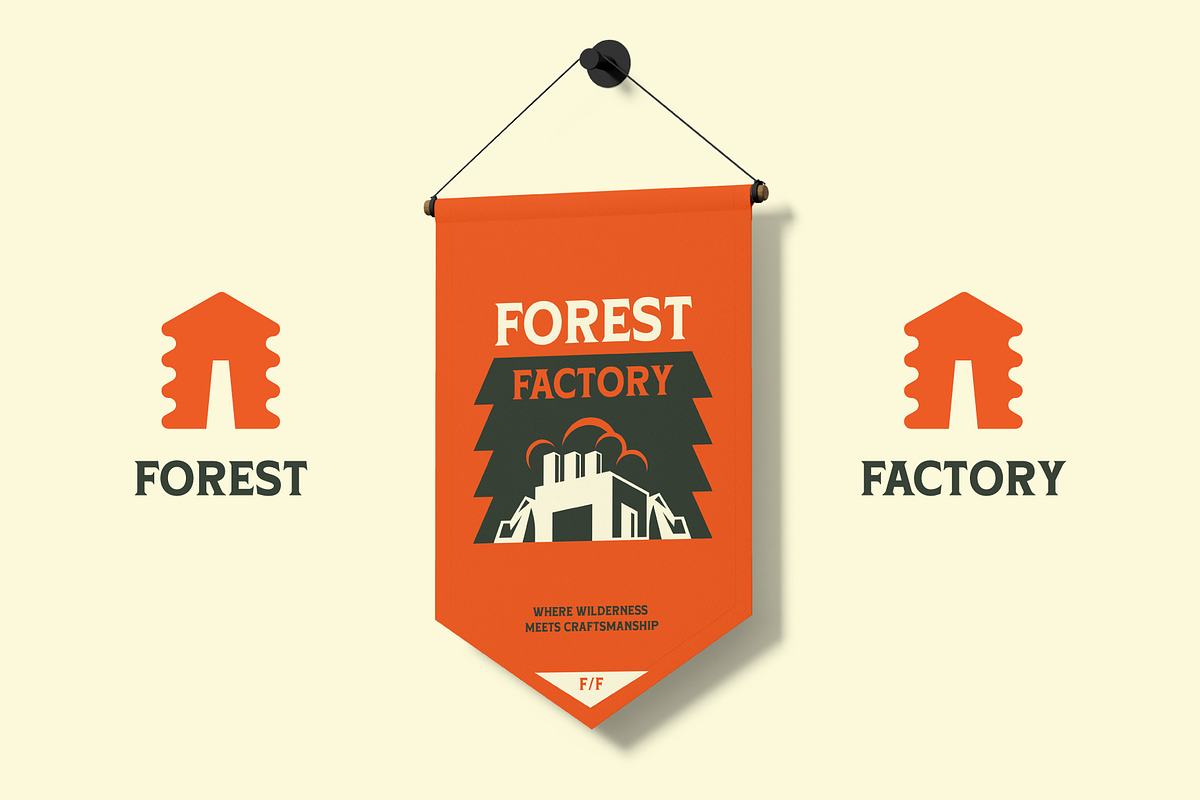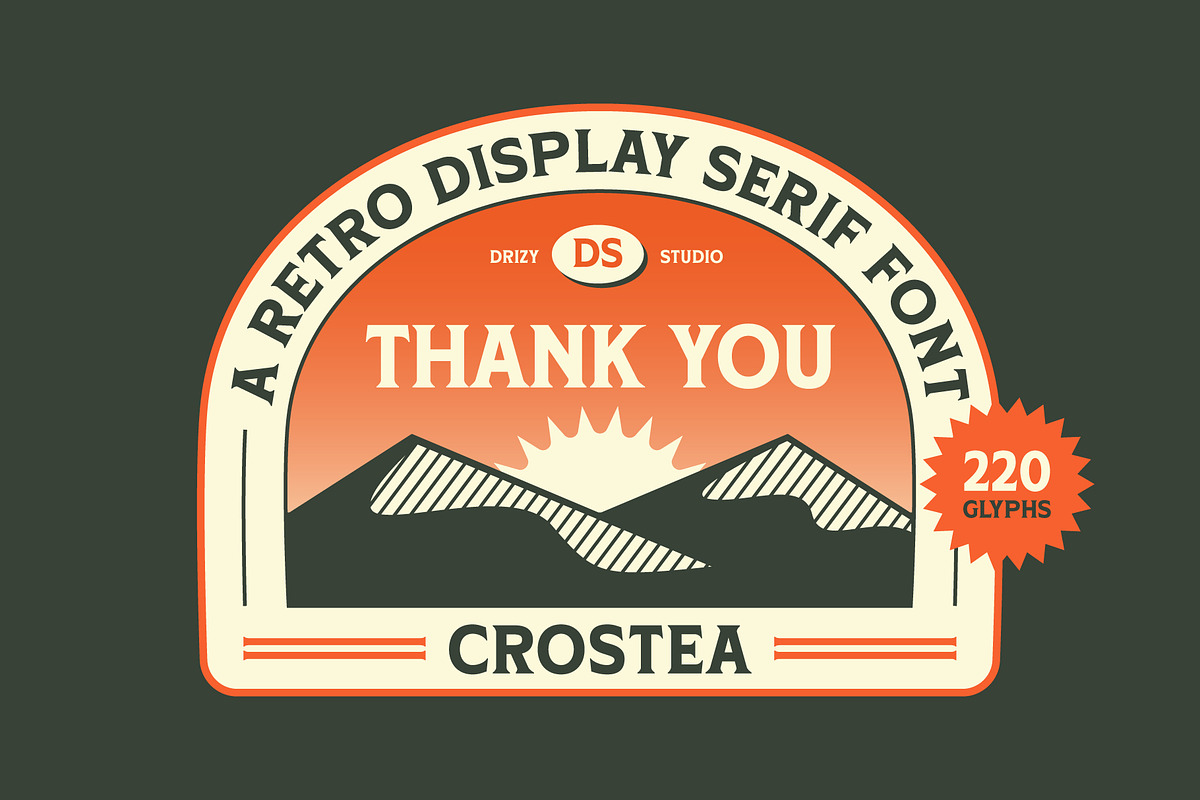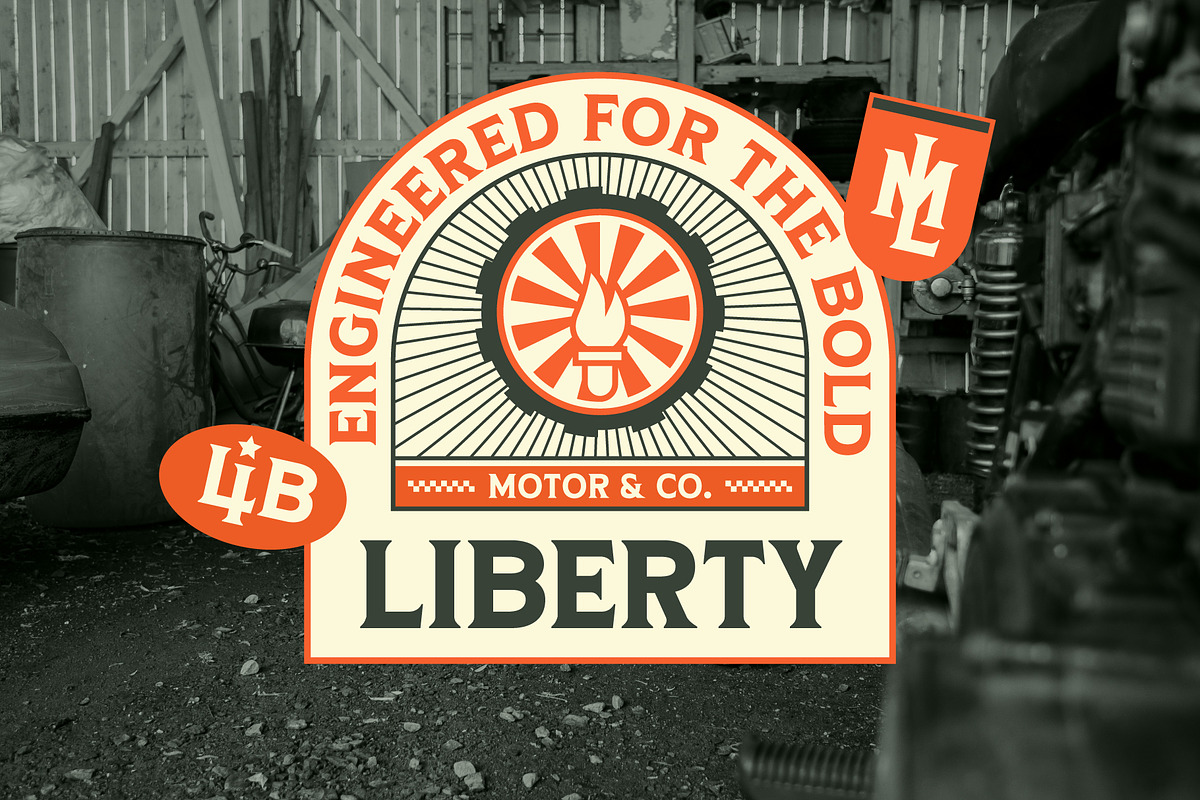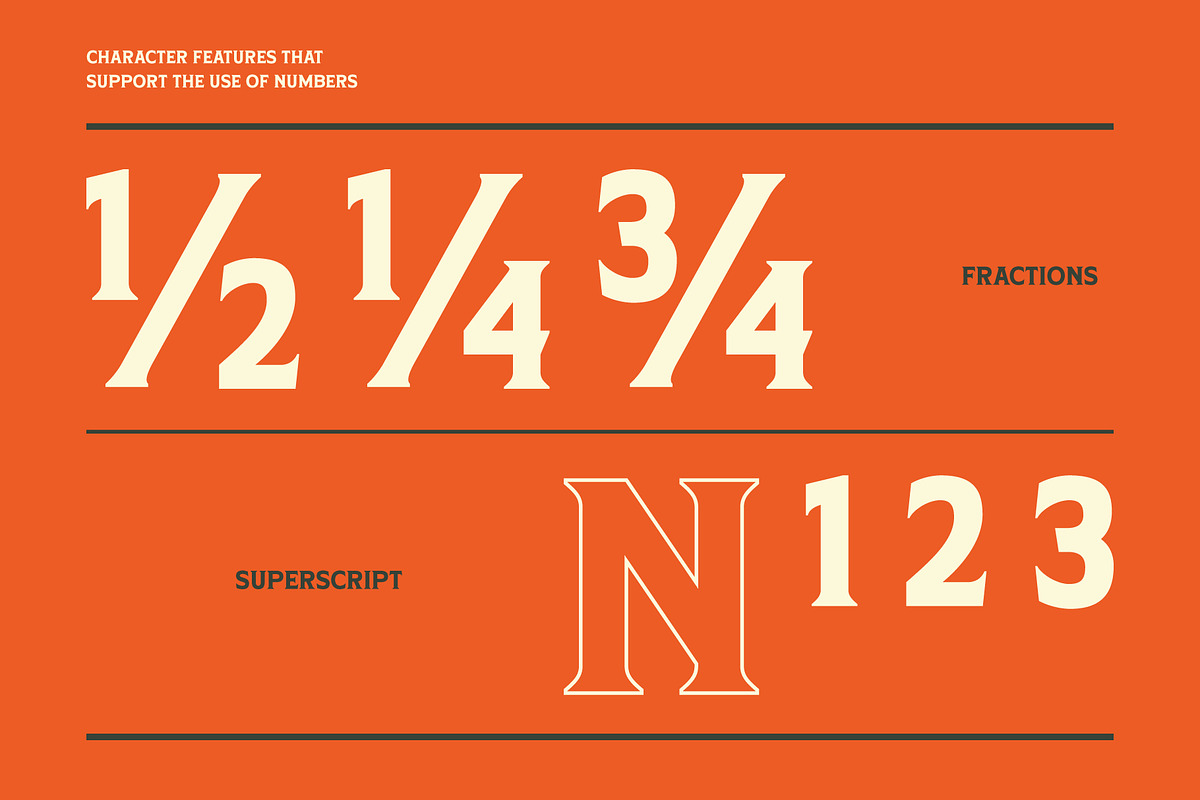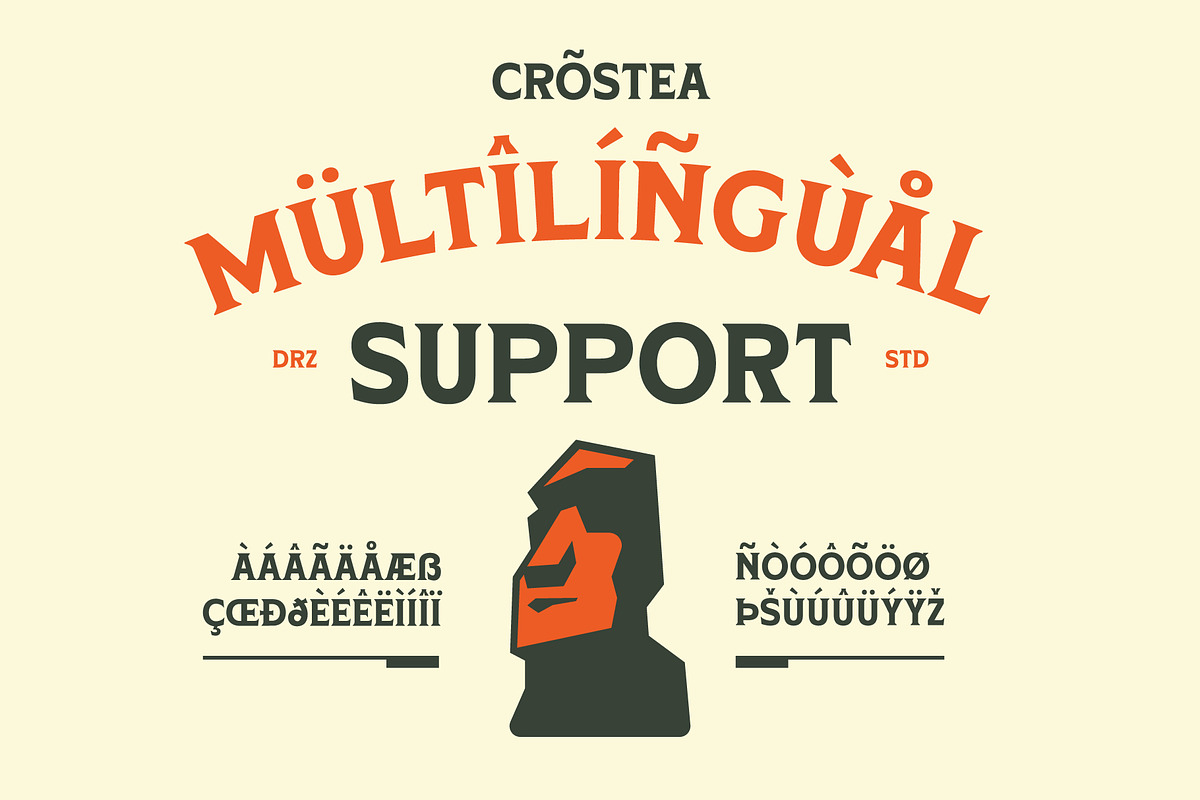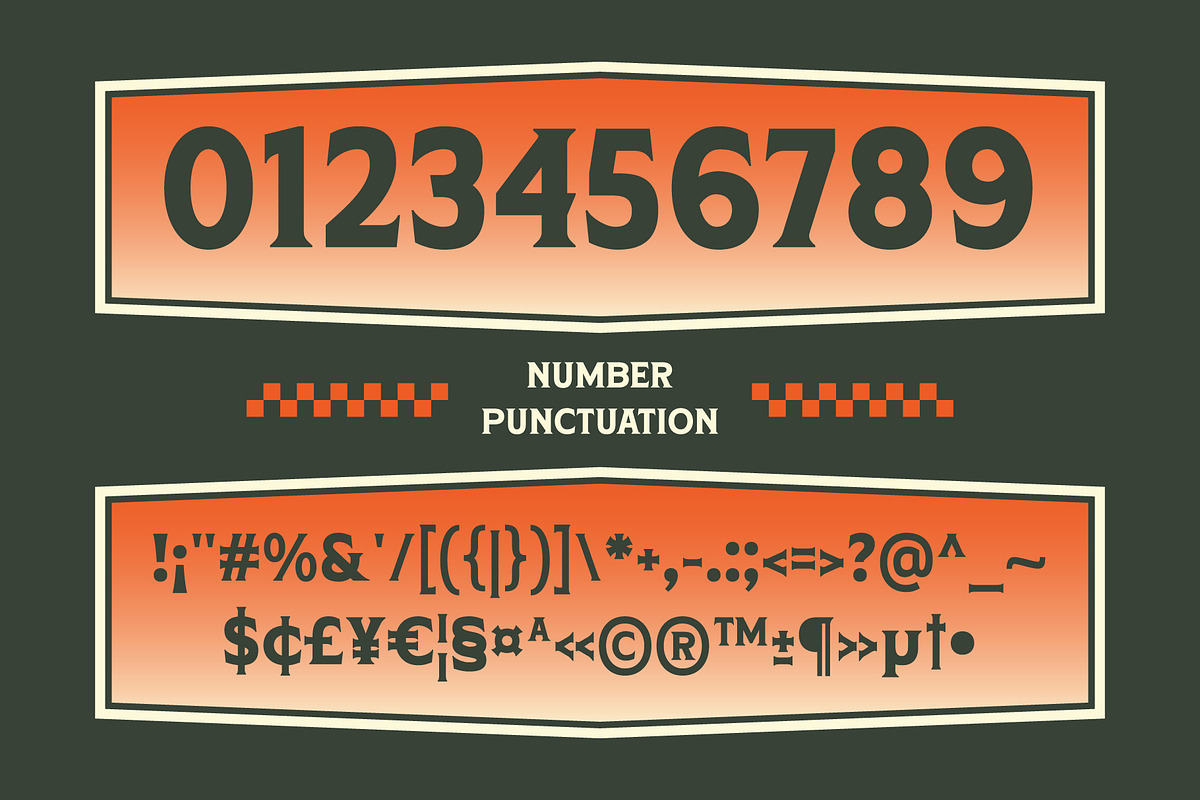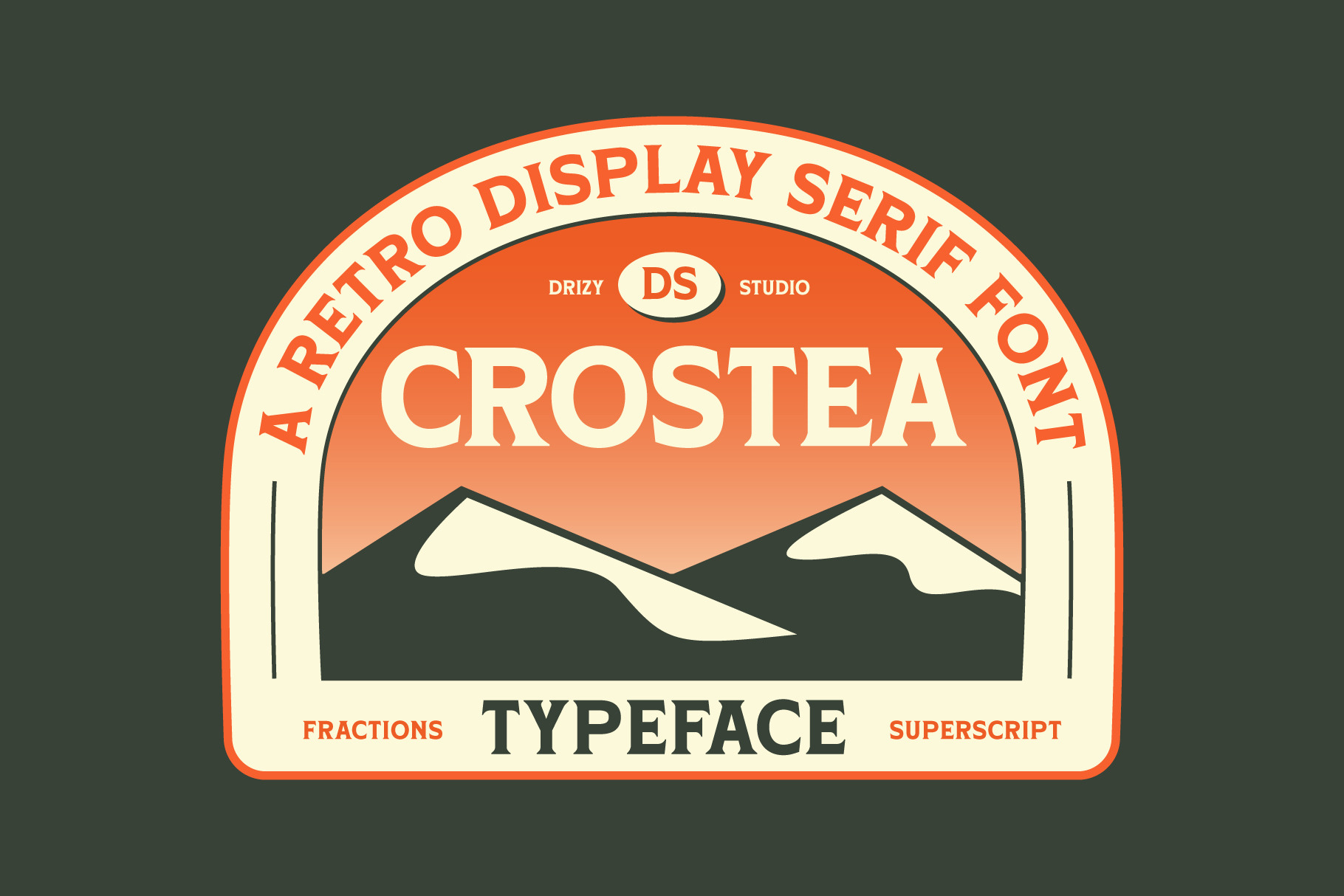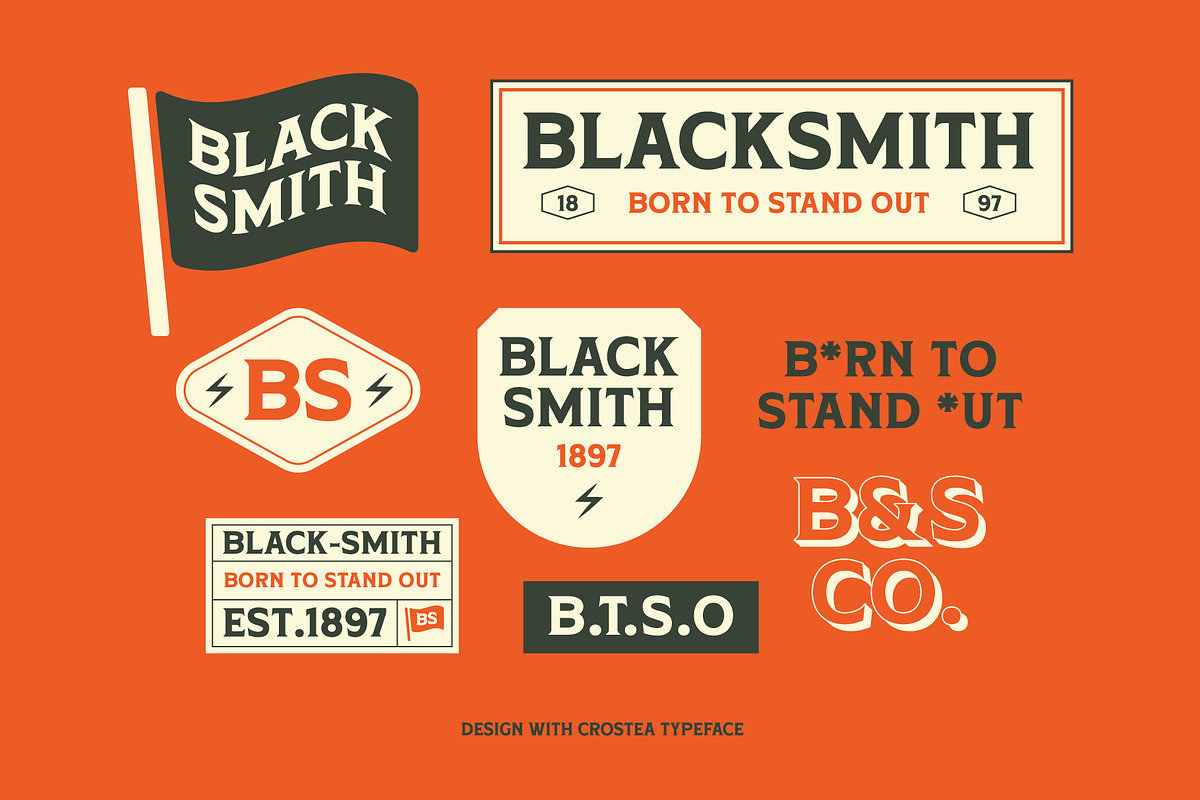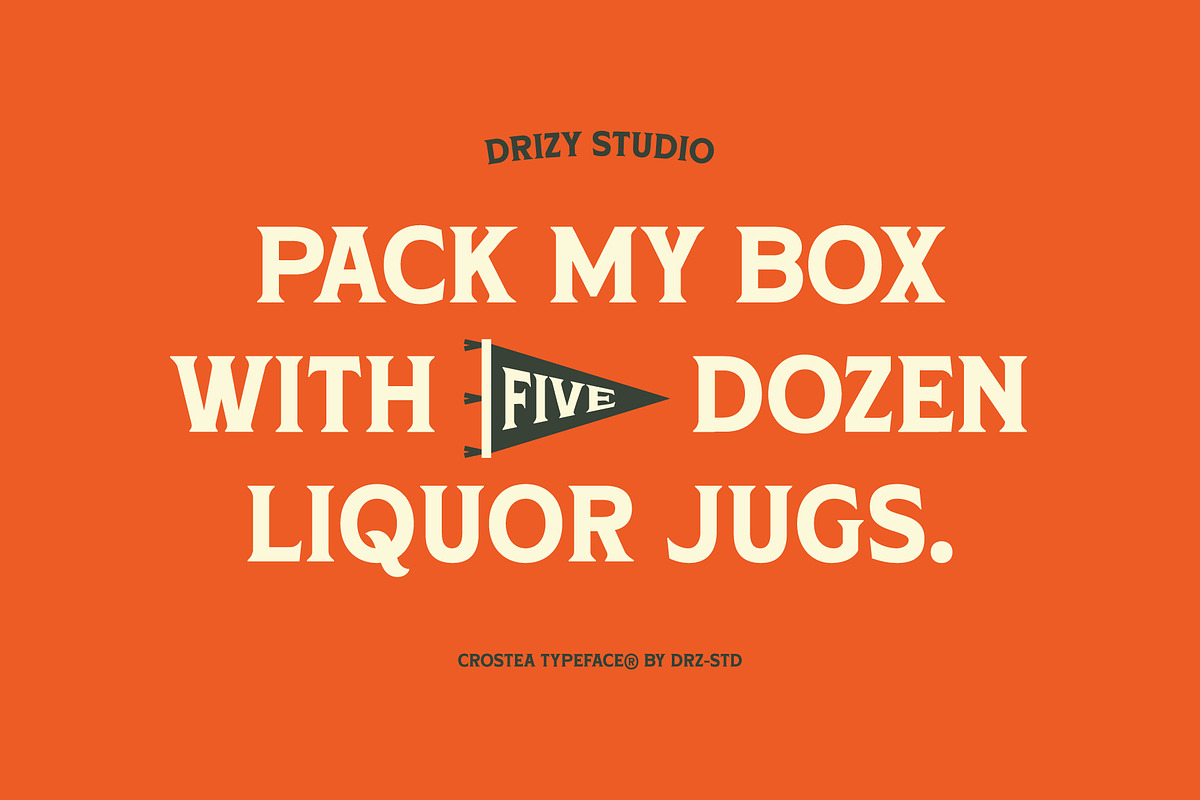
Crostea – Retro Display Serif Font
Crostea is a step into a world of vintage charm and adventurous spirit with retro, display, serif, and Adventures Patch font. Embark on a typographic journey like no other with our meticulously crafted serif font. Perfect for adding a nostalgic touch to your designs, Crostea captures the essence of retro styling while offering versatility for modern applications. Whether you’re creating posters, logos, or packaging, this font brings a timeless elegance that commands attention. Unleash your creativity and elevate your projects with a font that blends classic appeal with contemporary flair. Let’s create something extraordinary together.
Crostea features:
- Character Set (All Caps)
- Punctuation & Numbers
Elevate and explore the design possibilities with this Adventures Patch Design Font!